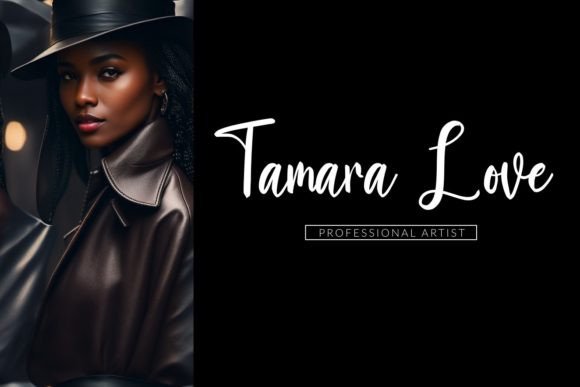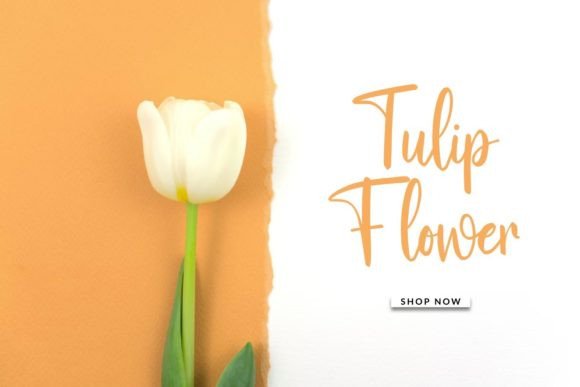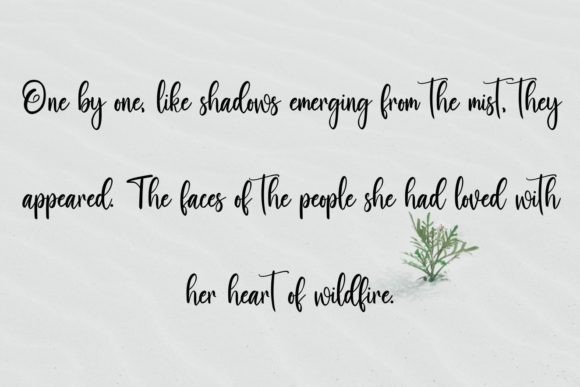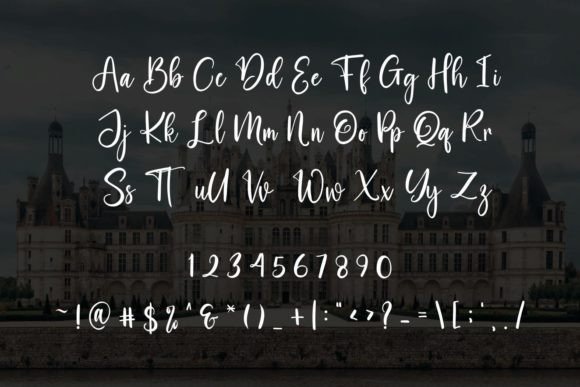
The Diary Queen Font: A Friendly and Versatile Companion for Creatives
I’ll never forget the moment I stumbled upon the Diary Queen font. I was working on a DIY project for a client’s birthday, and I was struggling to find the perfect handwritten font that would capture the playful and friendly vibe of the occasion. As soon as I saw Diary Queen, I knew I had found my match! In this article, I’ll share my experience with this lovely font, its features, and how to make the most of it in various design platforms.
An Honest Review of Diary Queen Font
Diary Queen is a cute and casual handwritten font that exudes an incredibly friendly feel. It’s perfect for creatives who want to add a personal touch to their projects. Here’s what I love about it:
- ✨ Friendly and approachable feel that’s perfect for a wide range of projects
- 🎨 Versatile and adaptable to different design styles and themes
- 💫 Beautifully crafted with attention to detail and a clear sense of rhythm
Of course, no font is perfect, and Diary Queen has a few small quirks:
- 🤔 Some letters, like the uppercase “Q” and “J”, might be a bit too ornate for certain design styles
- ⚠️ Limited availability of special characters and glyphs (but still offers a range of OpenType features)
One of the standout features of Diary Queen is its range of OpenType features and glyphs. These allow you to customize your text with:
- Stylistic alternates: different versions of letters and numbers that can add variety to your text
- Glyphs: special characters and symbols that can enhance your design
- Ligatures: combinations of letters that can create a more natural, handwritten feel
Experimenting with these features can help you get the most out of Diary Queen and add a unique touch to your designs.
The Story Behind Diary Queen
Diary Queen was designed with the intention of creating a friendly and approachable font that would evoke the feeling of writing in a personal diary. The designer aimed to craft a font that would be both beautiful and legible, with a unique character that would set it apart from more traditional fonts.
| What makes Diary Queen font so special? | Diary Queen is a unique and friendly handwritten font that offers a range of OpenType features and glyphs, making it perfect for a wide range of design projects. |
| Is Diary Queen suitable for body text? | While Diary Queen is highly legible, it’s best suited for headings, titles, and short paragraphs. For longer body text, you may want to choose a more traditional font. |
| Can I use Diary Queen with other fonts? | Absolutely! Diary Queen pairs well with a range of fonts, from sans-serifs to scripts. Experiment with different combinations to find the perfect match for your design. |